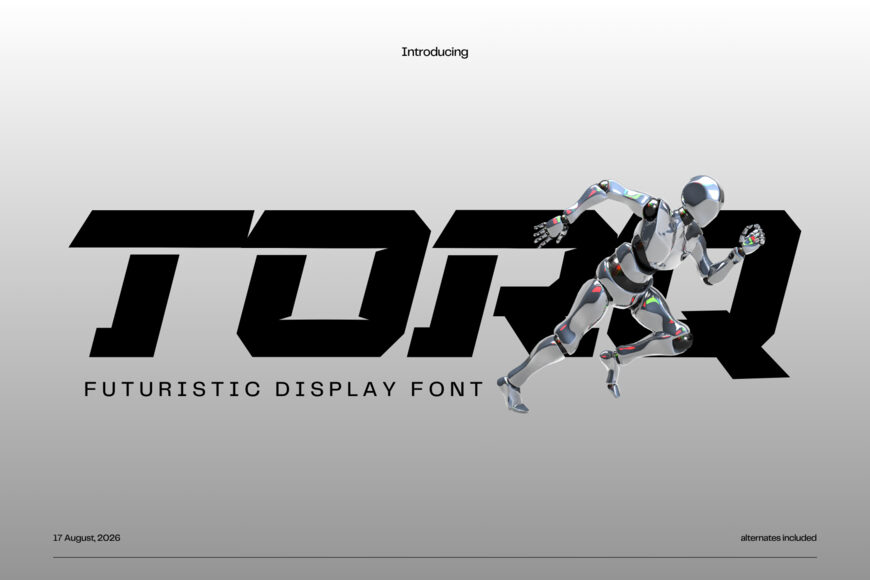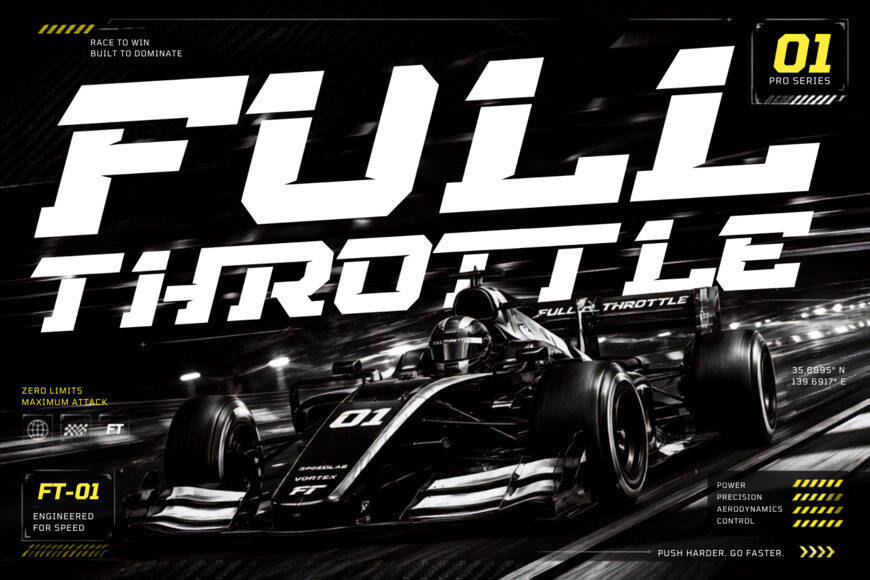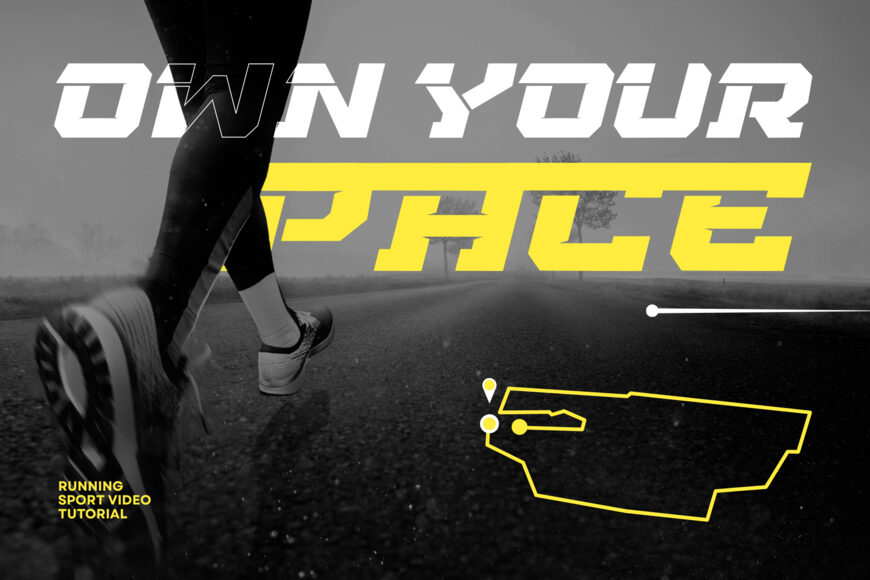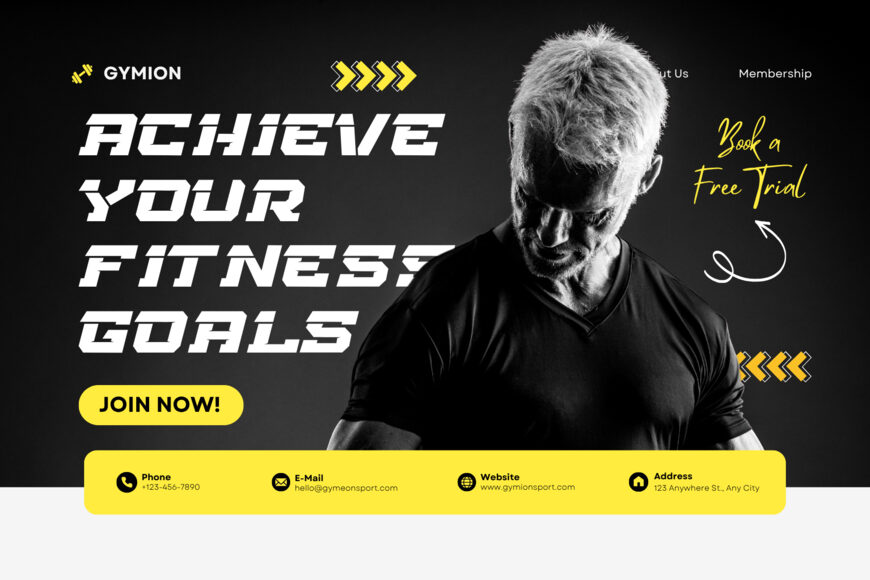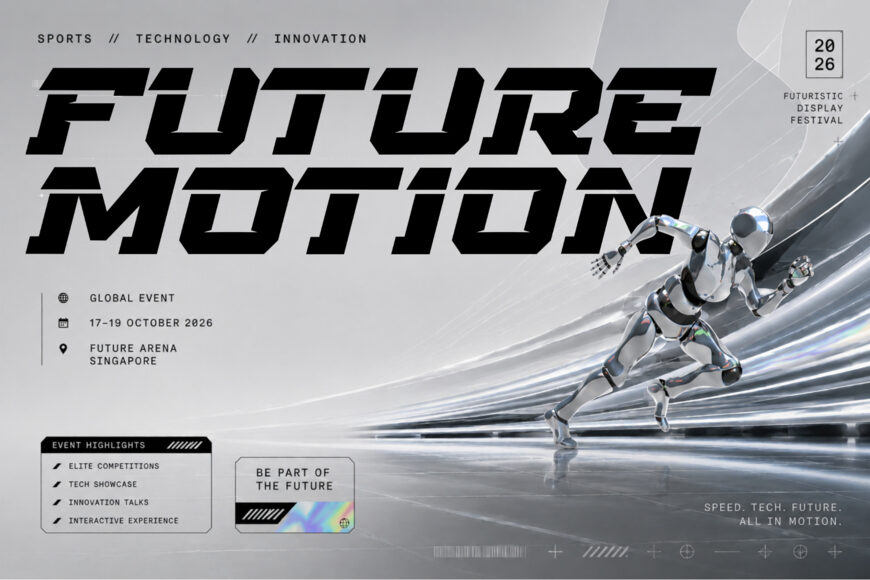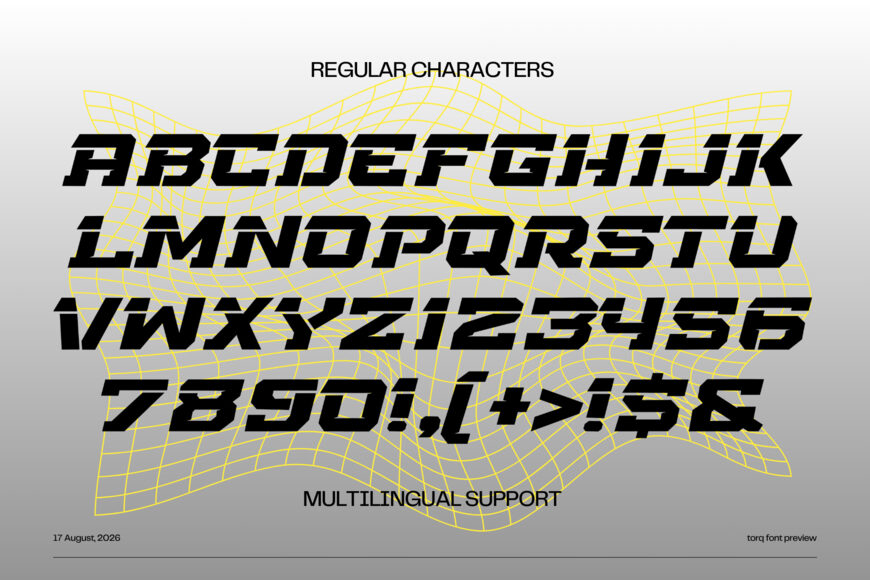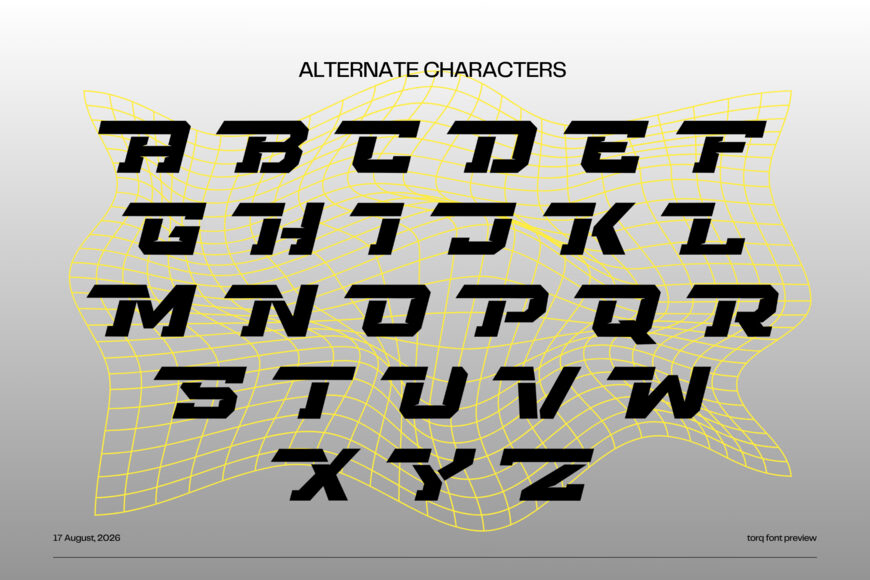
Accelerate your visual design with raw speed, cybernetic power, and high-octane modern edge using TORQ! Engineered as an aggressive futuristic display font, its heavy italic stance features sharp angular cuts, wide blocky proportions, and dynamic geometric speed lines built to command instant attention.
Ideal for esports team branding, racing logos, action sports posters, sci-fi movie graphics, tech apparel prints, gaming overlays, and modern streetwear designs, TORQ injects explosive momentum into every headline!